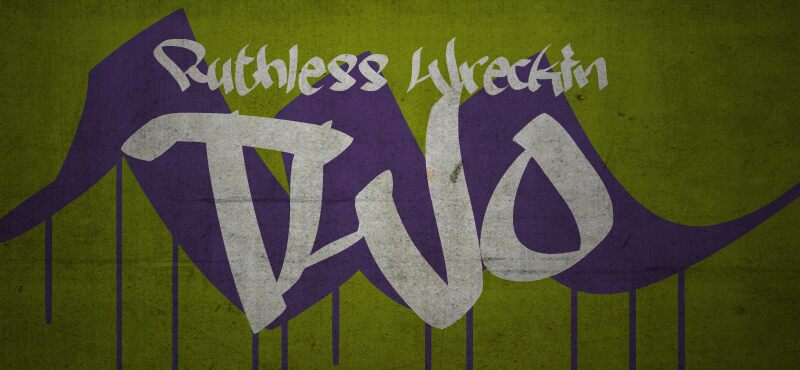
Ruthless Wreckin TWO by Måns Grebäck is a free graffiti script with the force of a slashing street tag. Its letters lunge across the line in broad, irregular strokes, with sharp hooks, sudden tapers, and tight overlaps that keep the silhouette restless.
It can turn a music poster into something closer to a hand-marked flyer than formal typography. The same raw attack suits skate merchandise, action-sports graphics, and underground event promotion. Jagged edges echo torn-paper collage, spray-painted textures, and angular character art, drawing the wording into the illustration.
Ruthless Wreckin TWO